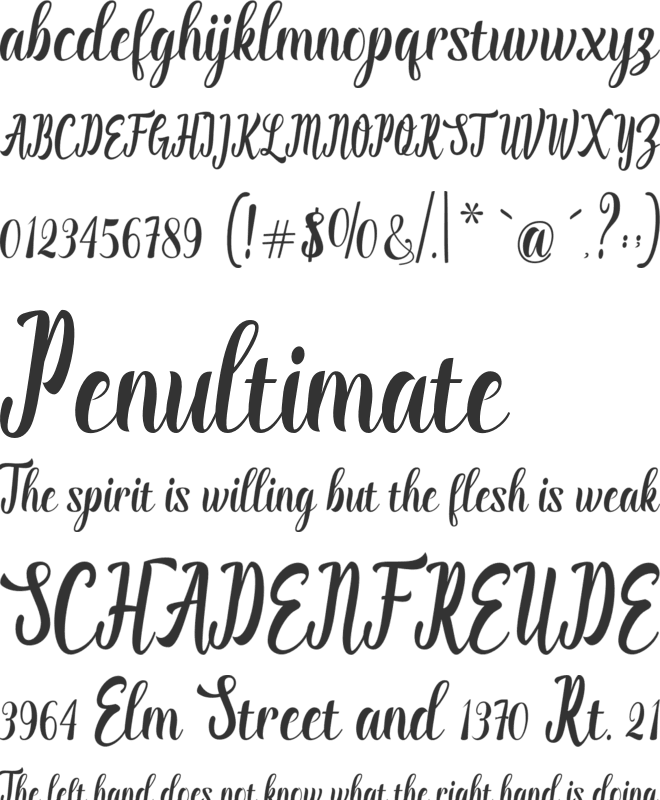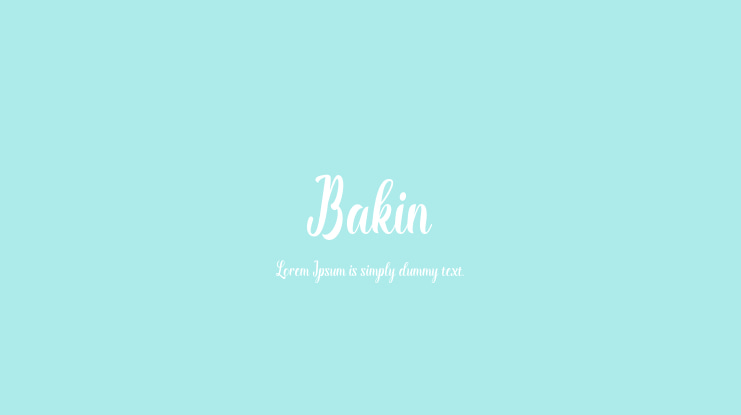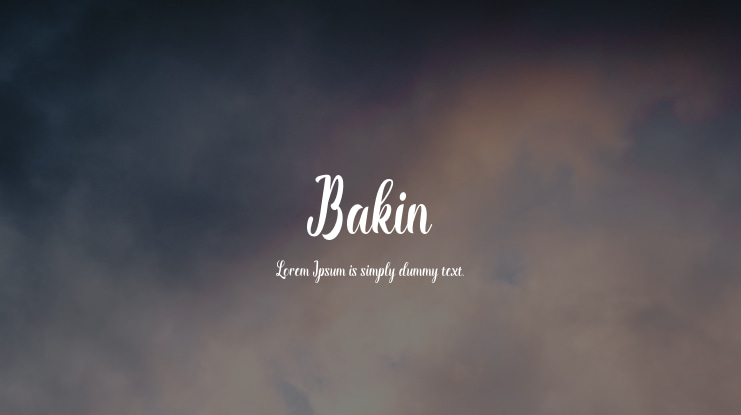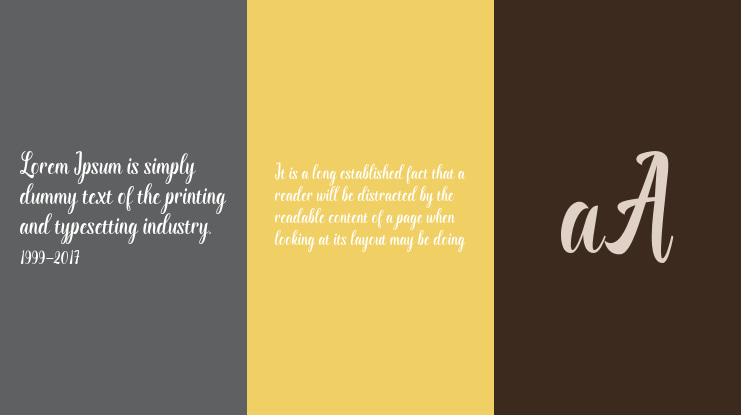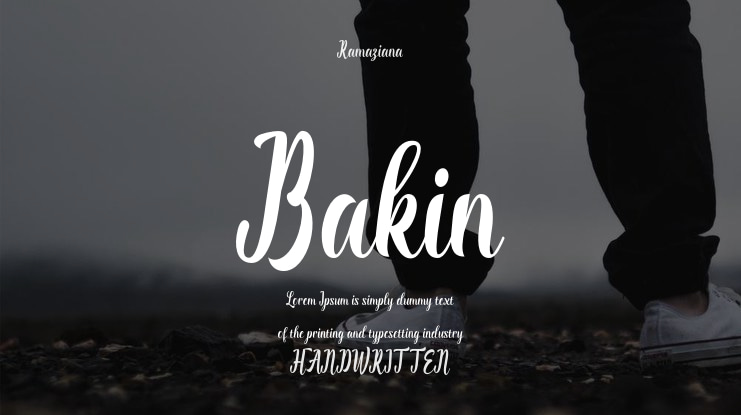
Bakin Font
Bakin is a lovely, well-balanced script font that features a nice flow. It is PUA encoded, which means you can easily access all of the glyphs and swashes!